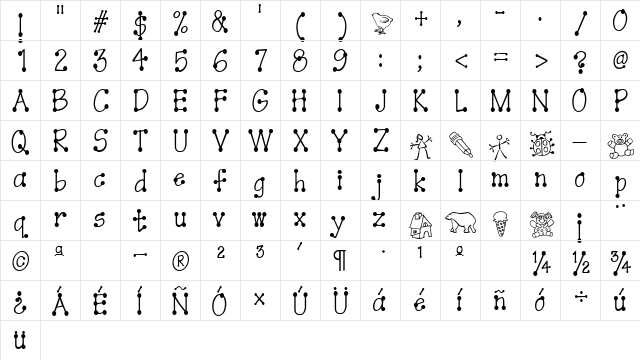
AbcBulletin Regular
Design Context for AbcBulletin
AbcBulletin is a composed and adaptable typeface that performs quietly and consistently across a wide range of design contexts.